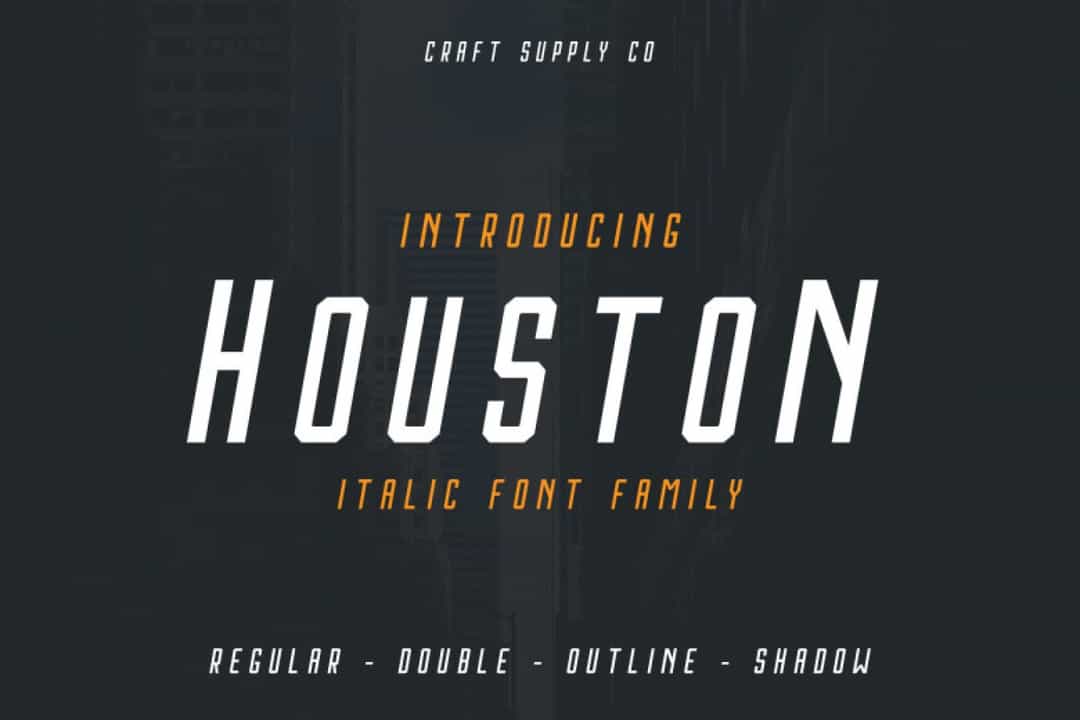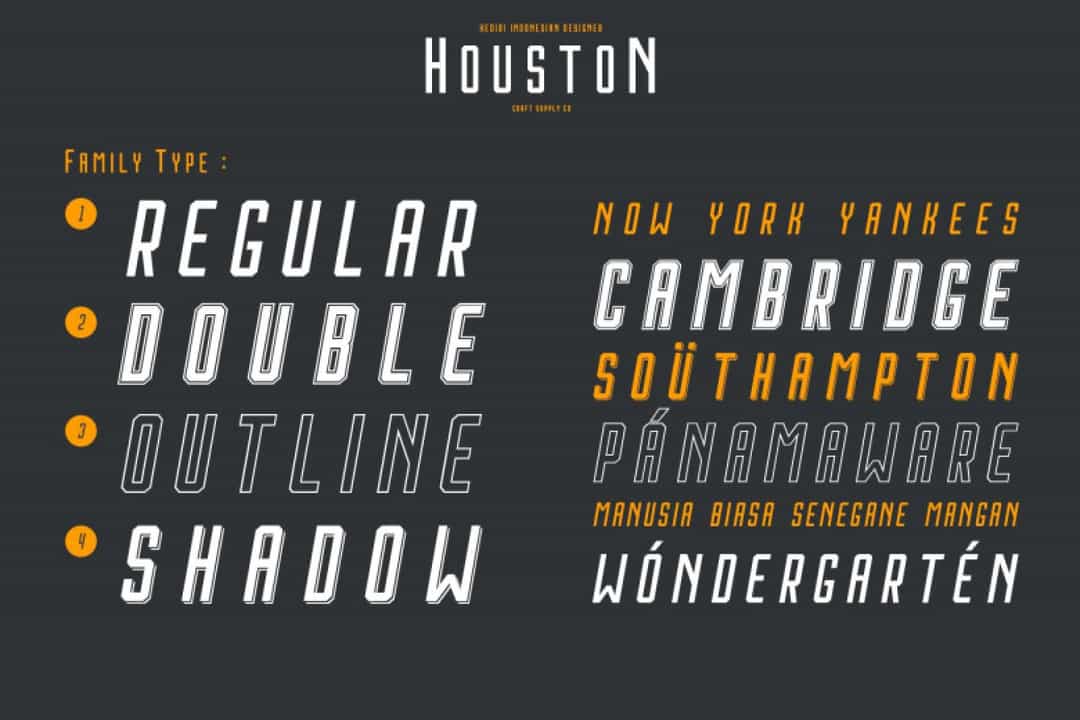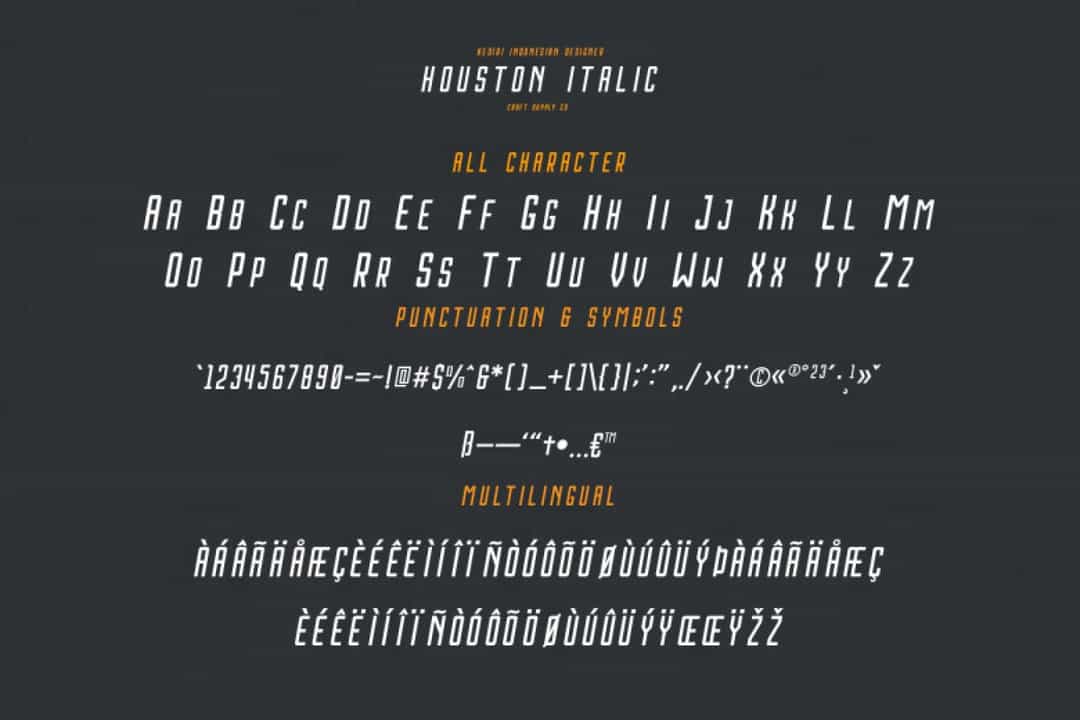
Houston Italic Font Family is a flexible font family that draws its inspiration from American graphic designs for sports. Houston Italic Font Family features compact yet solid typeface that combines several styles. Perfect for logos, greeting cards, quotes posters branding stationary design title blog header art quote typography projects.